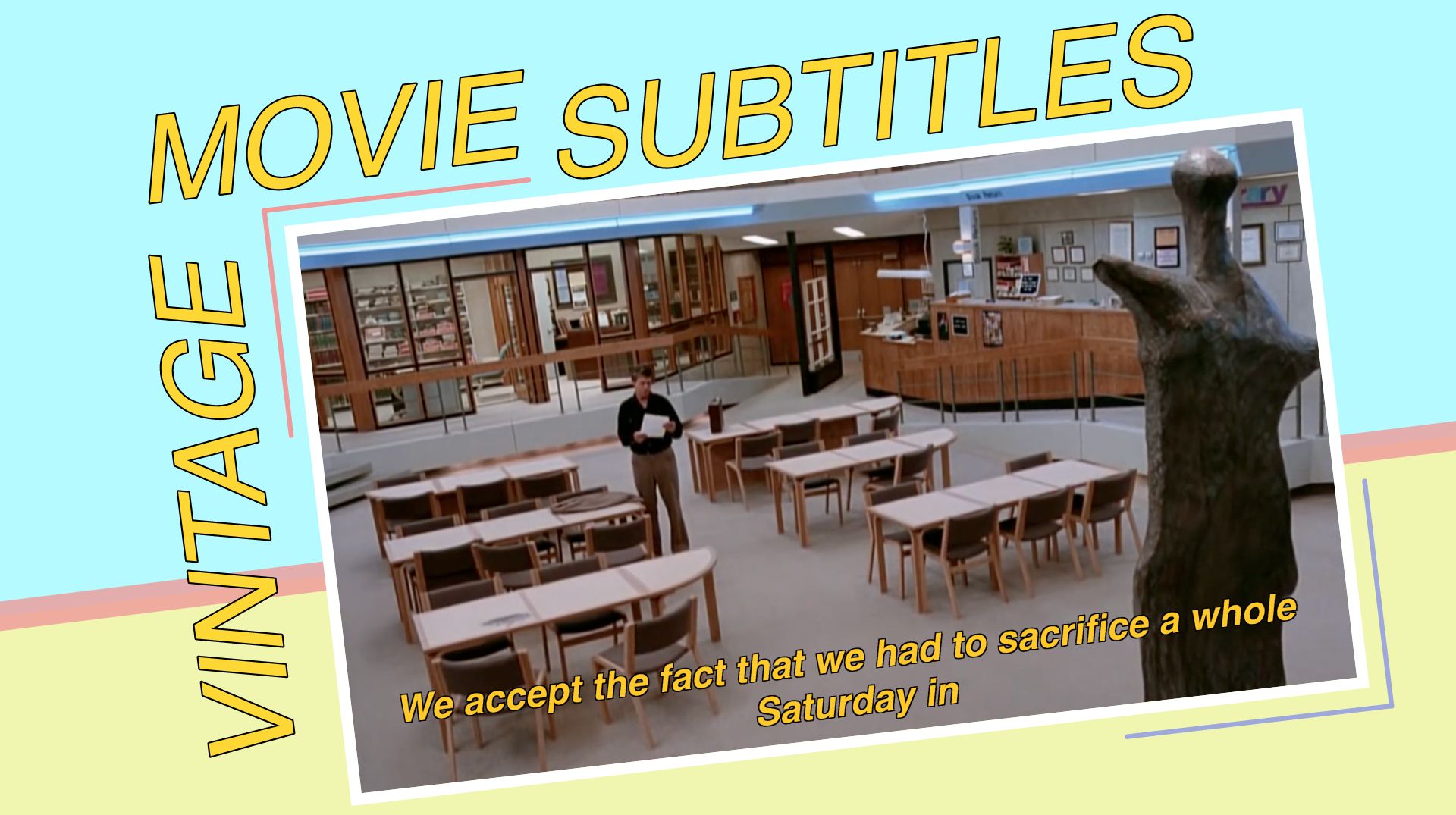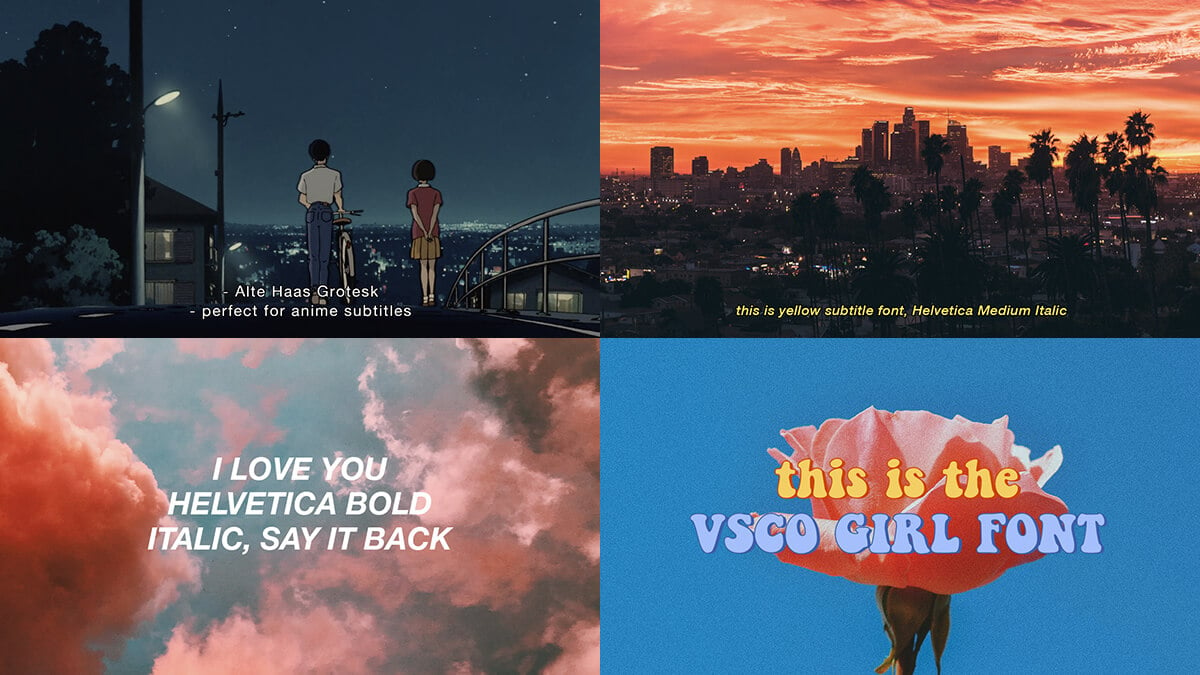
How to customize netflix subtitles? On the styles menu, you can choose the sizing for the font.
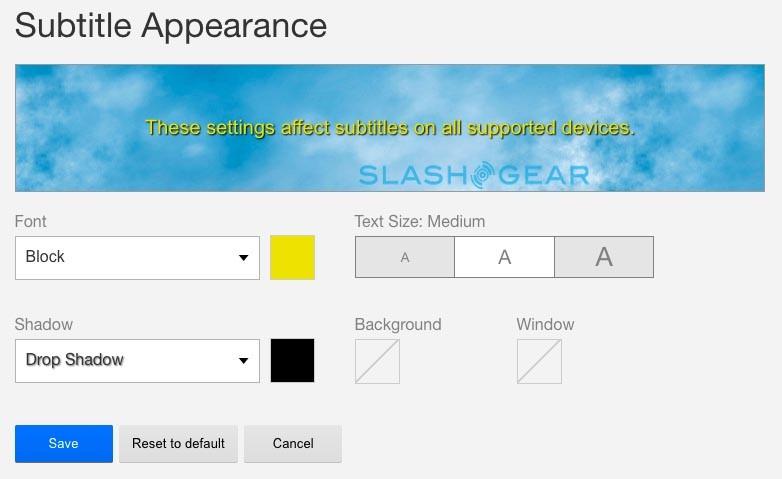
Movie subtitle font size. Ideally, you should make subtitle font size adjustable on the viewer’s side (like bbc did), but when that’s not possible, the following xrs will work best: But you might want to reduce the font size if you don't want to hide a part of the image. Go to tools > preferences [ctrl + p]
Applying a suitable subtitle font type is significant while creating a music video or movie. 3) font size and color. Look for the closed caption tab.
Use mixed upper and lower case. You can also change the shadow of the font, the font and shadow colors, and the font size. Sejak awal pembuatan, font ini memang ditujukan untuk konten video dan film.
Fortunately you can do that with happy scribe's subtitle generator. In the settings menu, scroll down and tap on “accessibility”. The best case would be to make the subtitles so clear that they can watch the image while reading the words.
Kamu bisa menggunakan verdana untuk ukuran font yang kecil sekali pun. Use a wide font such as reith sans when authoring subtitles (see fonts and tts:fontfamily). <<strong>font size</strong>=16px color=white>phrase</<strong>font</strong>> you can change the color to what ever you want, and the size too.
That one is quite massive. I have a 52 tv and when watching a dvd i've encoded for itunes the subtitle text is too small to read comfortably from more than a few feet away. You can get that assistance through minitool moviemaker, which offers you multiple subtitle font styles and allows you to change sizes, colors, outlines, and alignments of your subtitles.
Subtitles with roboto font archivo. I purchased the appletv primarily for the ability to stream my library with subtitles as my wife is hearing impaired, the subtitle size issue is a big show stopper if there is no resolution. If the relative font size (smaller to larger) doesn’t make the text size a suitable one according to your choice, you can input the exact size in pixels as well.
It is possible to change the netflix subtitle font, size, and color, among other aspects. The ‘change caption font’ section lets you change the color that the subtitles are displayed in, the transparency of the subtitles, the style which offers you a few different font types to choose from, and the size which allows you to make them bigger or smaller. No standard size and font, but usually you'd want a nice, clear, solid font with no serifs, and if you're able to fit more than 12 words or so per line, then chances are you'll be making your audience work too hard to read the words.
Next, scroll down and choose “subtitles & captioning” located under the hearing category, as shown below. But you must always keep the px after what ever size you want your sub titles to be, for example size=16p, or size=20px. So, if the subtitler or technician chooses a font that exceeds this limit — which has actually happened before — they can run into issues.
If that is not the font used to present it, then the alternative is likely to be a narrower font, so if you author in a wide font. For example if i have a movie.mkv and movie.srt file, subtitles are displayed with very small font on my dell 30. It seems to me that movie is more colourful watchin it with windows media player instead of vlc, but i have one problem with it.